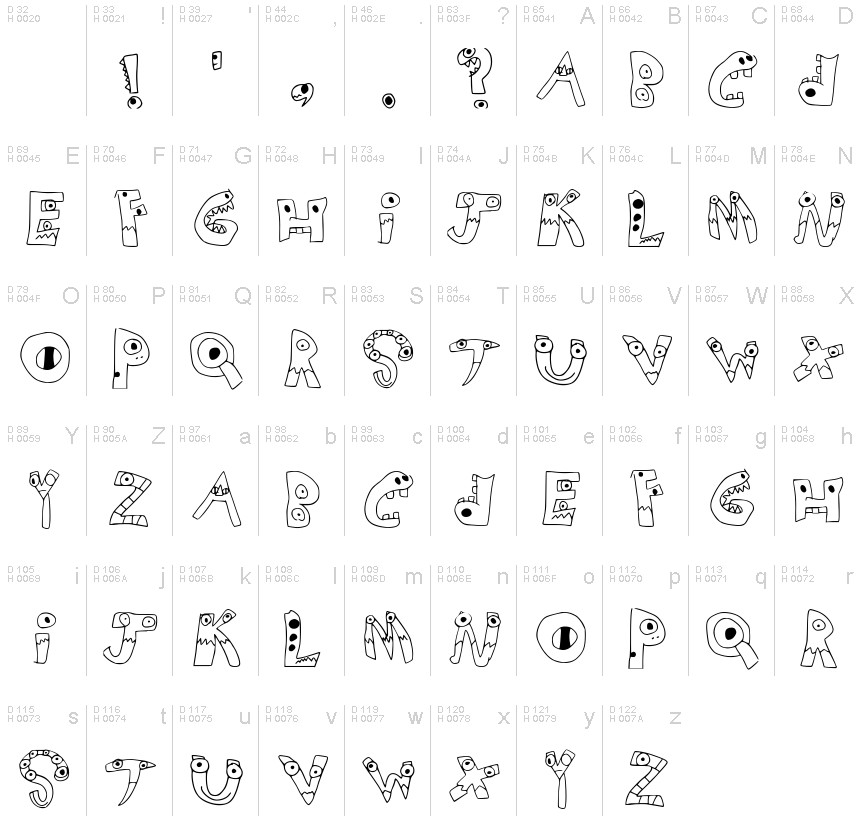
Monsterfont Regular
Monsterfont leaps off the page with its playful and whimsical flair, breathing life into every word. Crafted by the imaginative samalama, this display font is a delightful fusion of cartoonish charm and creative eccentricity. Each letter seems to dance with joy, featuring exaggerated forms that twist and turn as if in a lively animation. The bold strokes and quirky embellishments make it an excellent choice for projects that aim to inject fun and a touch of fantasy.
Its aesthetic appeal lies in its ability to capture the essence of lightheartedness while maintaining readability. Monsterfont's style would shine in children's books, playful branding, party invitations, or any design space that calls for a font with personality and energy. It stands out as a perfect fit for those seeking to infuse their message with cheerfulness and originality.